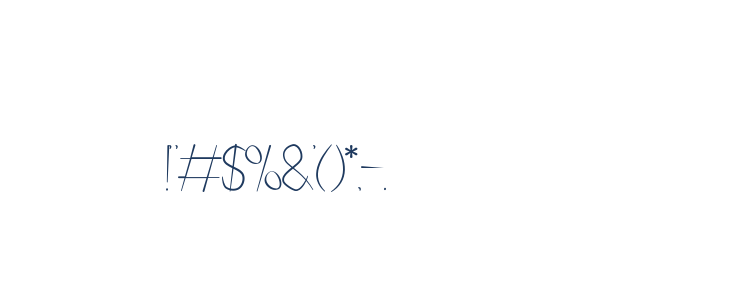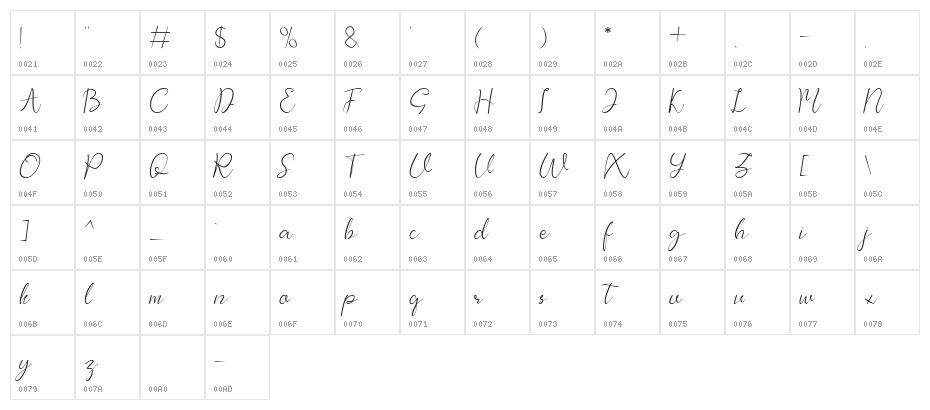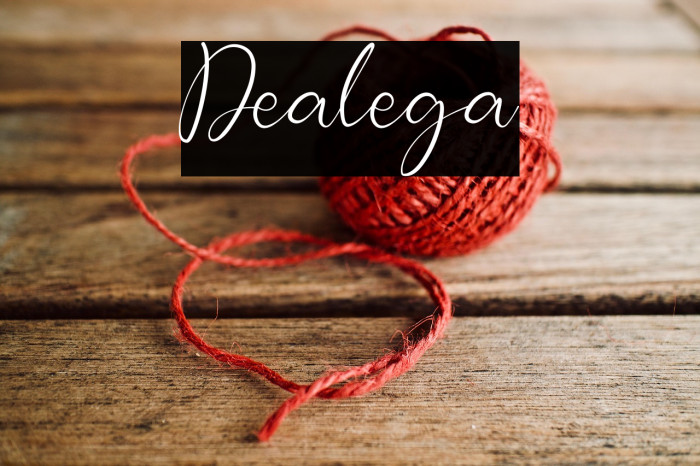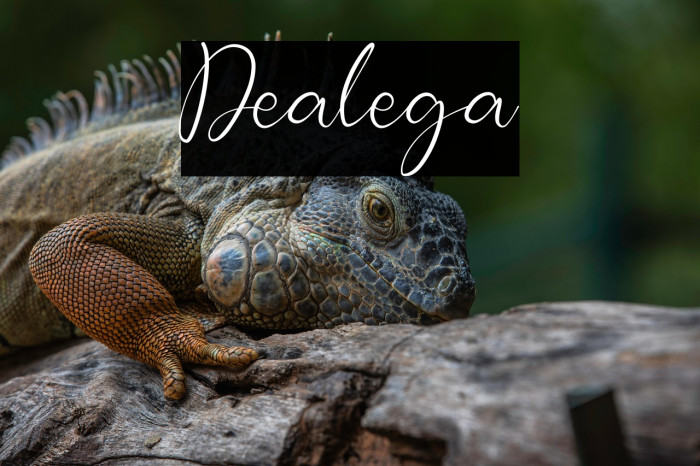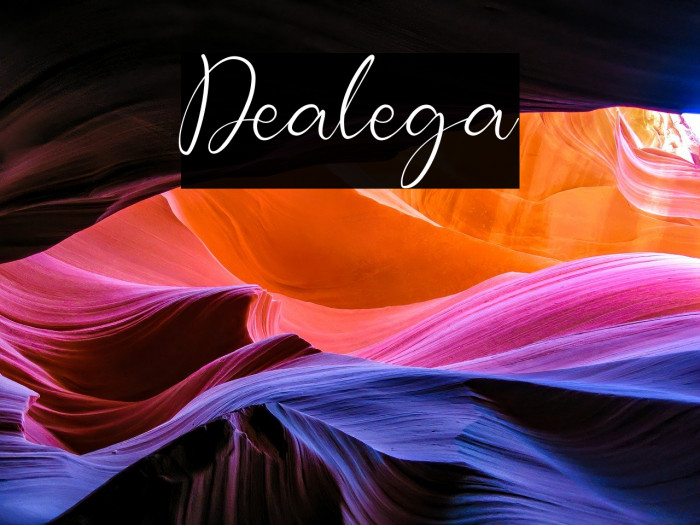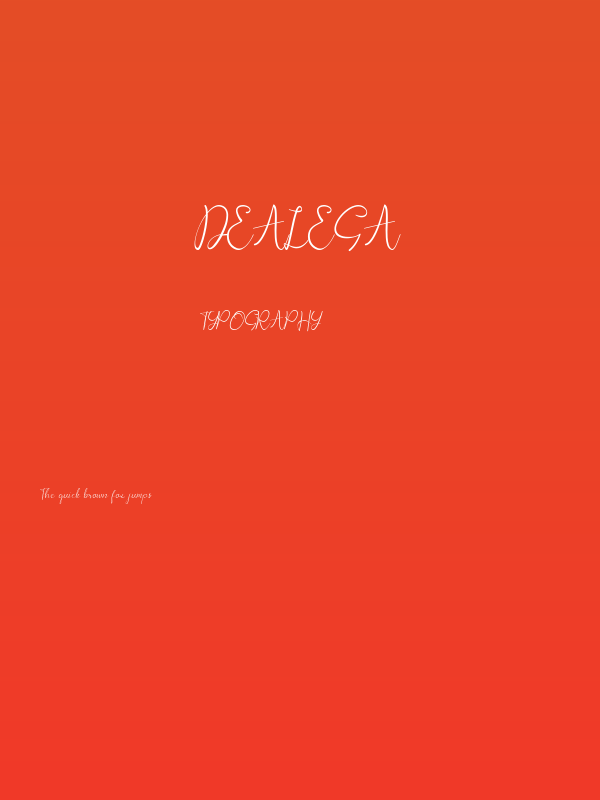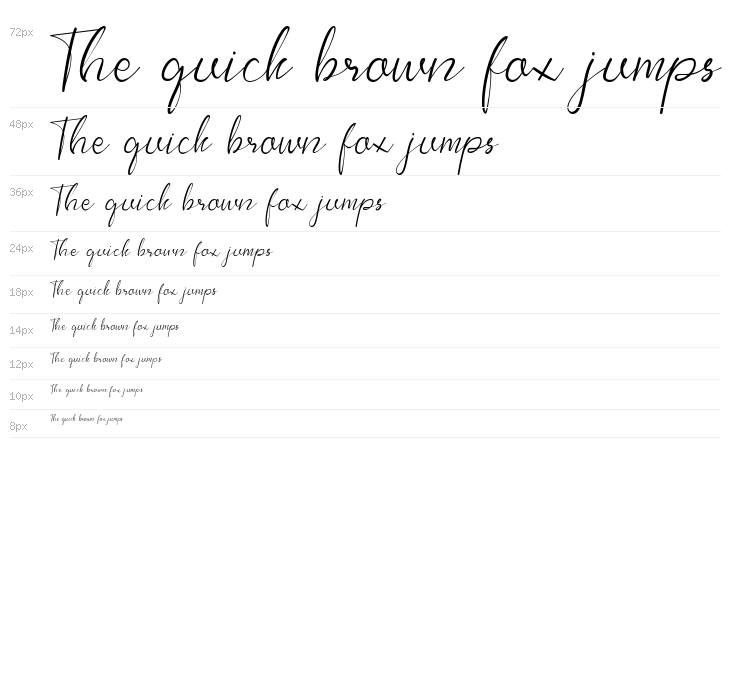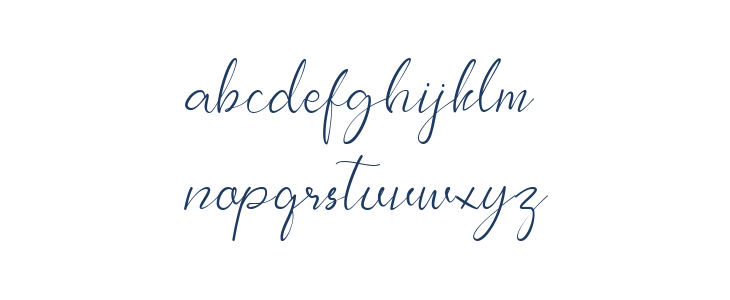
Dealega Font
Dealega Description
This elegant script font features a flowing, cursive style with a modern twist. The characters are connected, creating a seamless and fluid appearance. The uppercase letters are tall and graceful, with sweeping curves and loops that add a touch of sophistication. The lowercase letters maintain a consistent flow, complementing the uppercase with their delicate and refined strokes. The numerals and special characters are designed to match the overall aesthetic, ensuring a cohesive look. This font exudes a sense of elegance and charm, making it ideal for projects that require a personal and stylish touch.
| Overall Style | Elegant, Modern |
| Proposed Projects | Ideal for wedding invitations, branding, greeting cards, and elegant logos. |